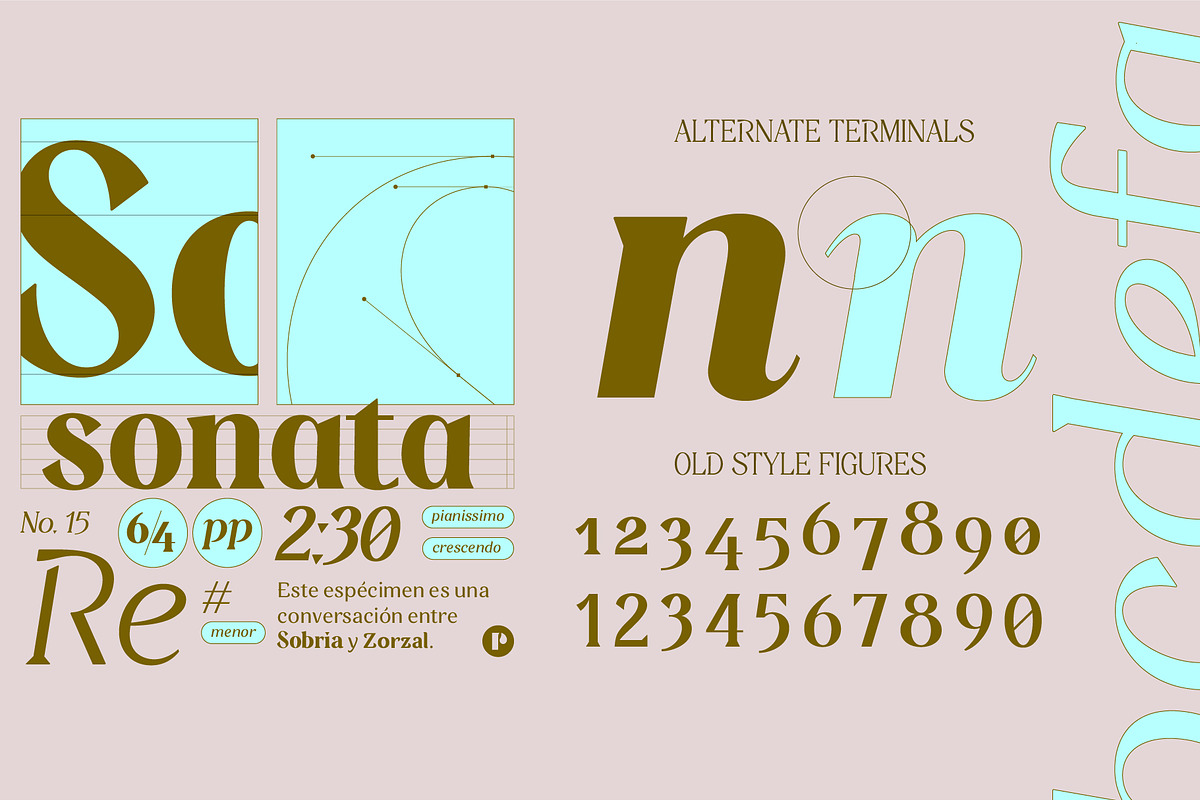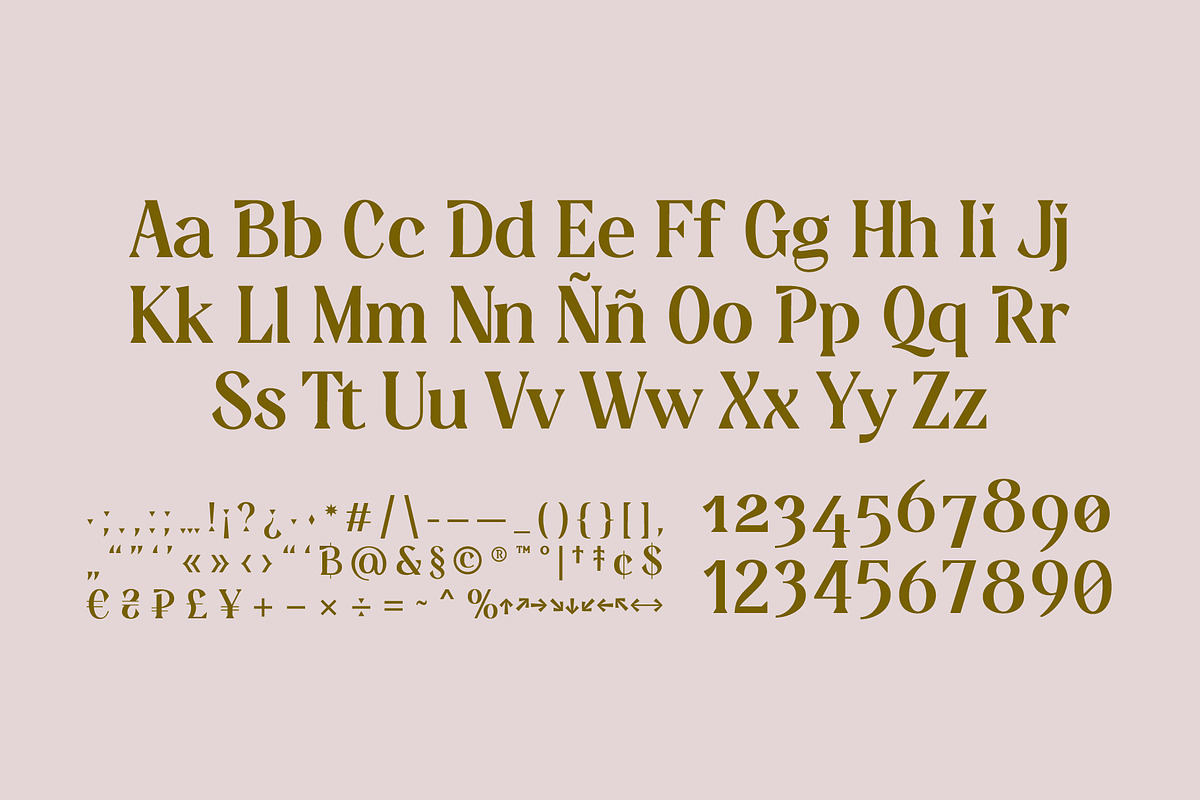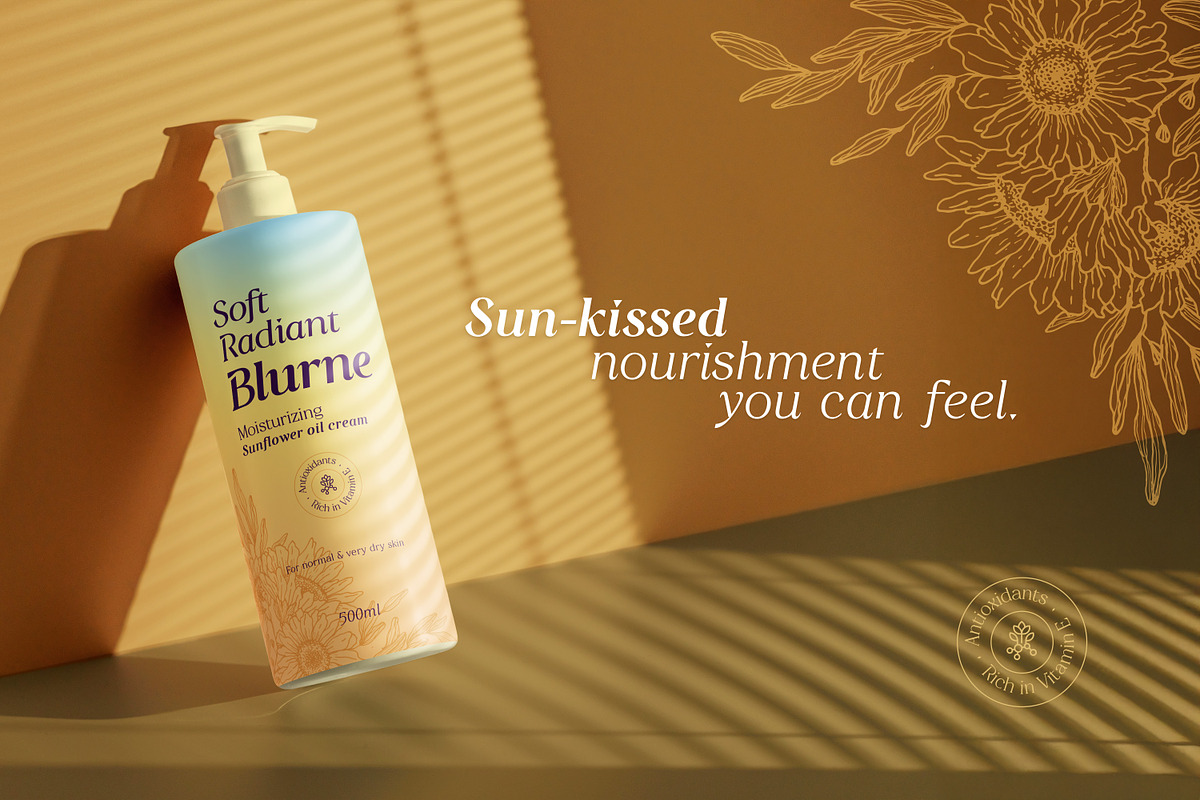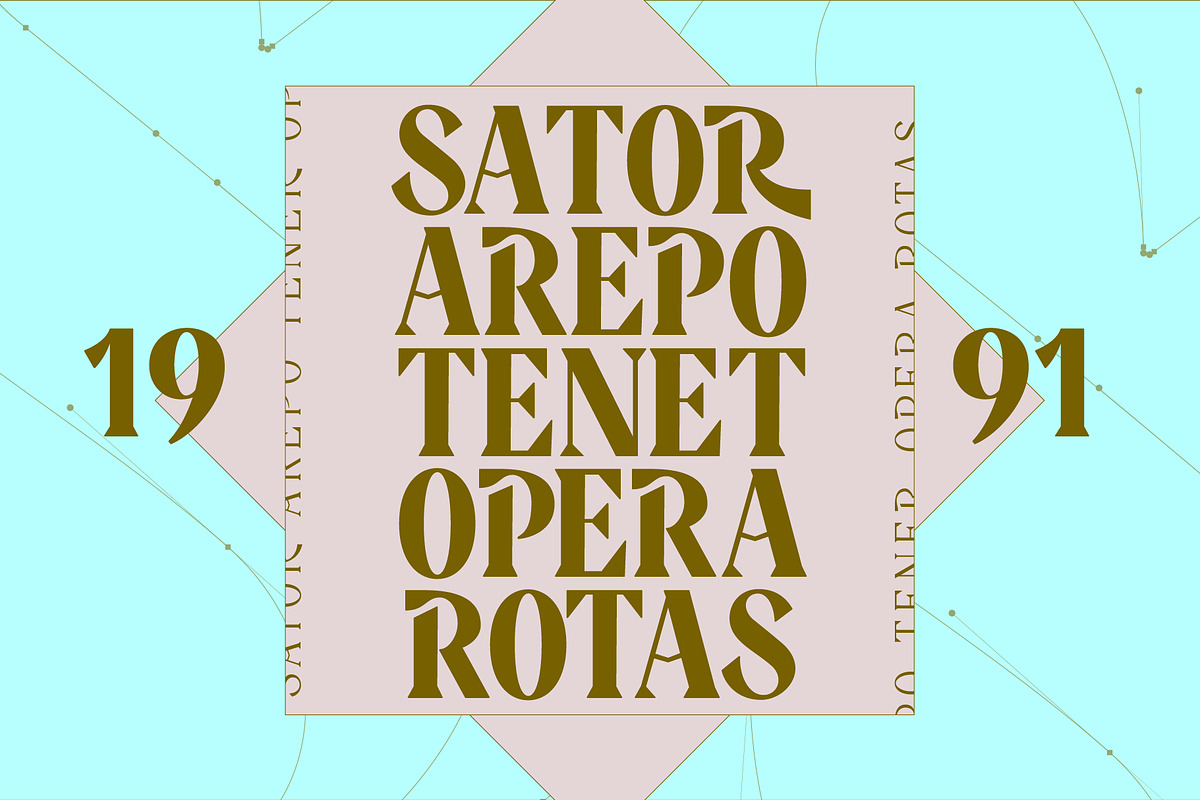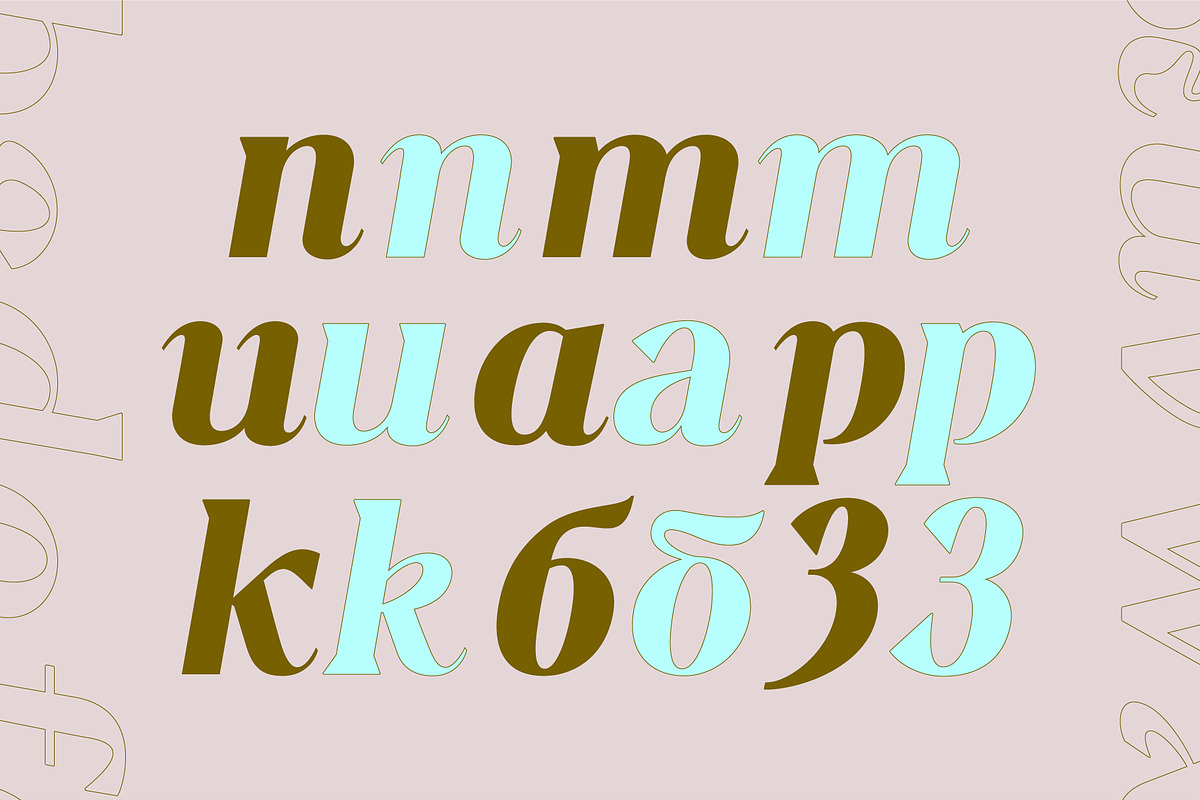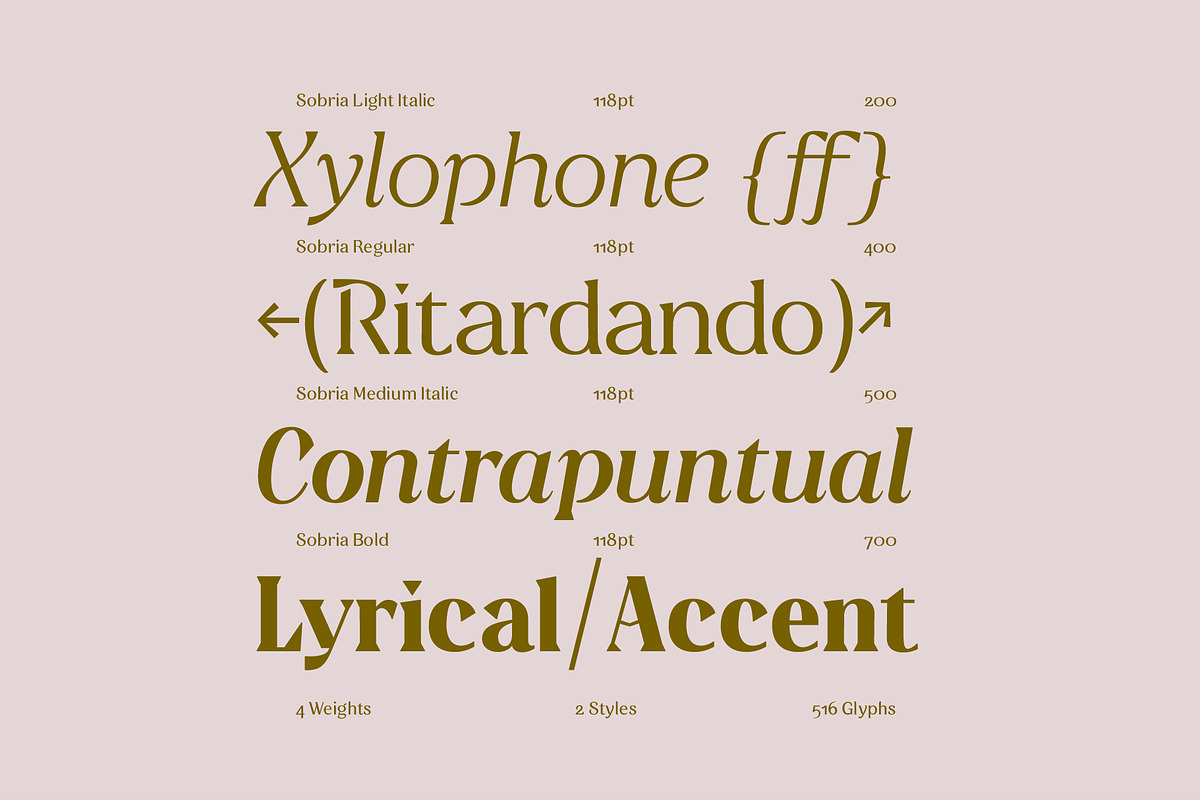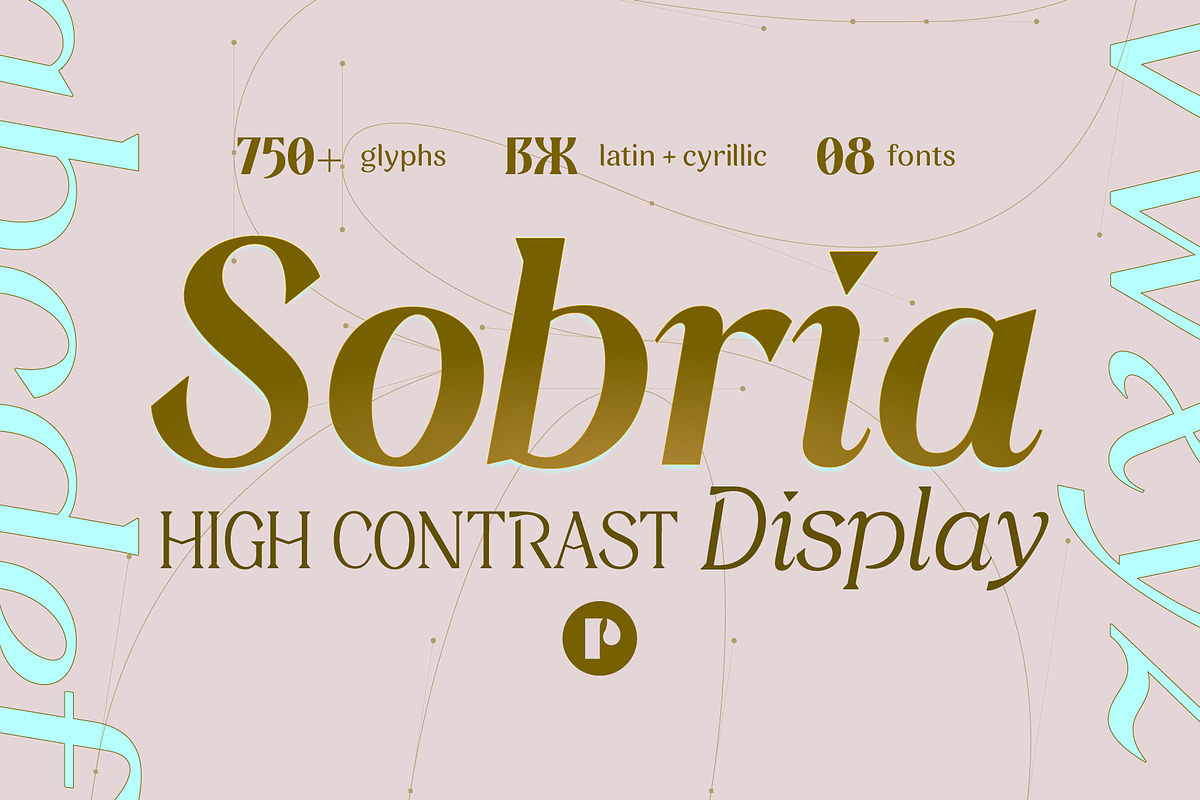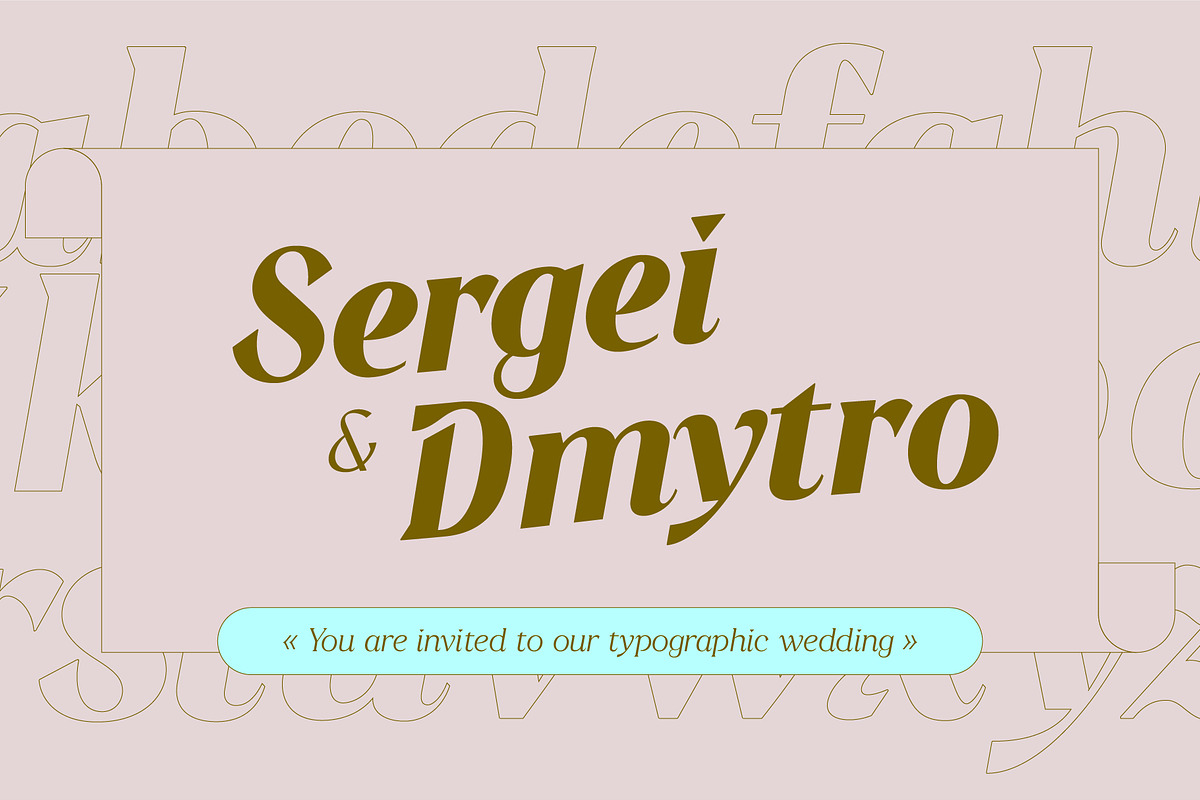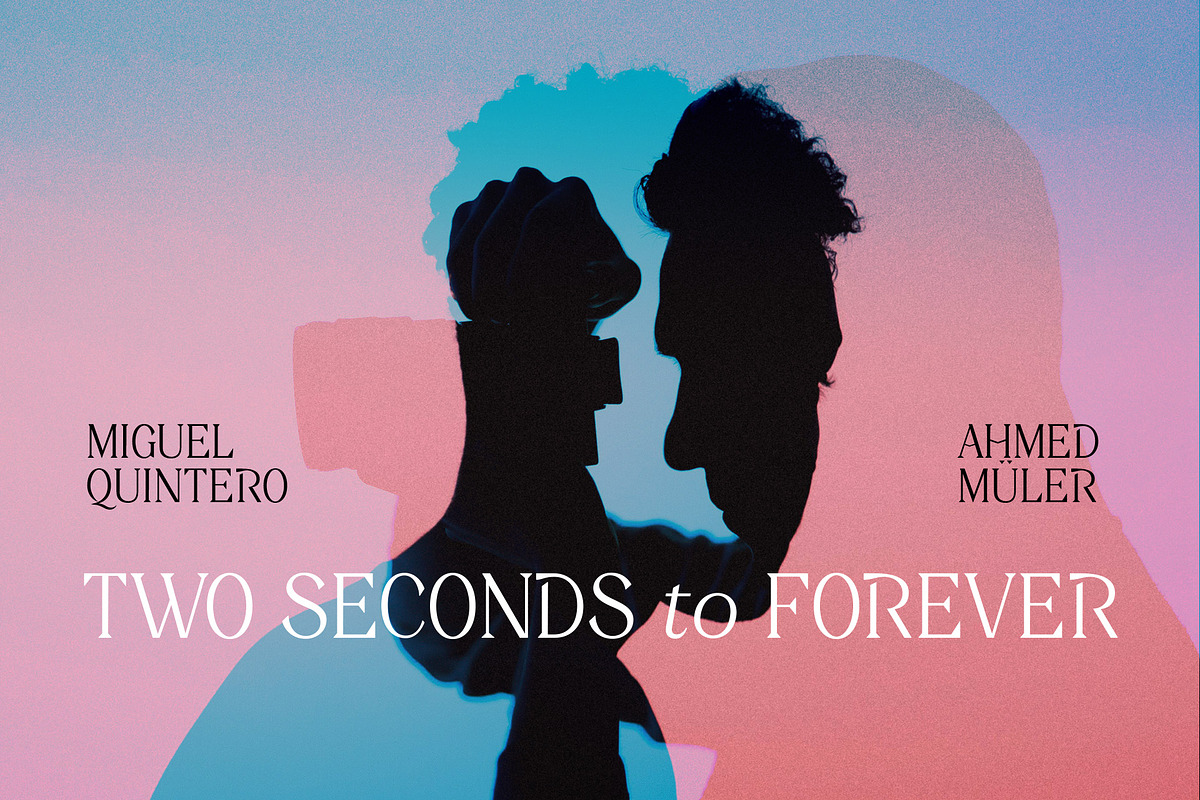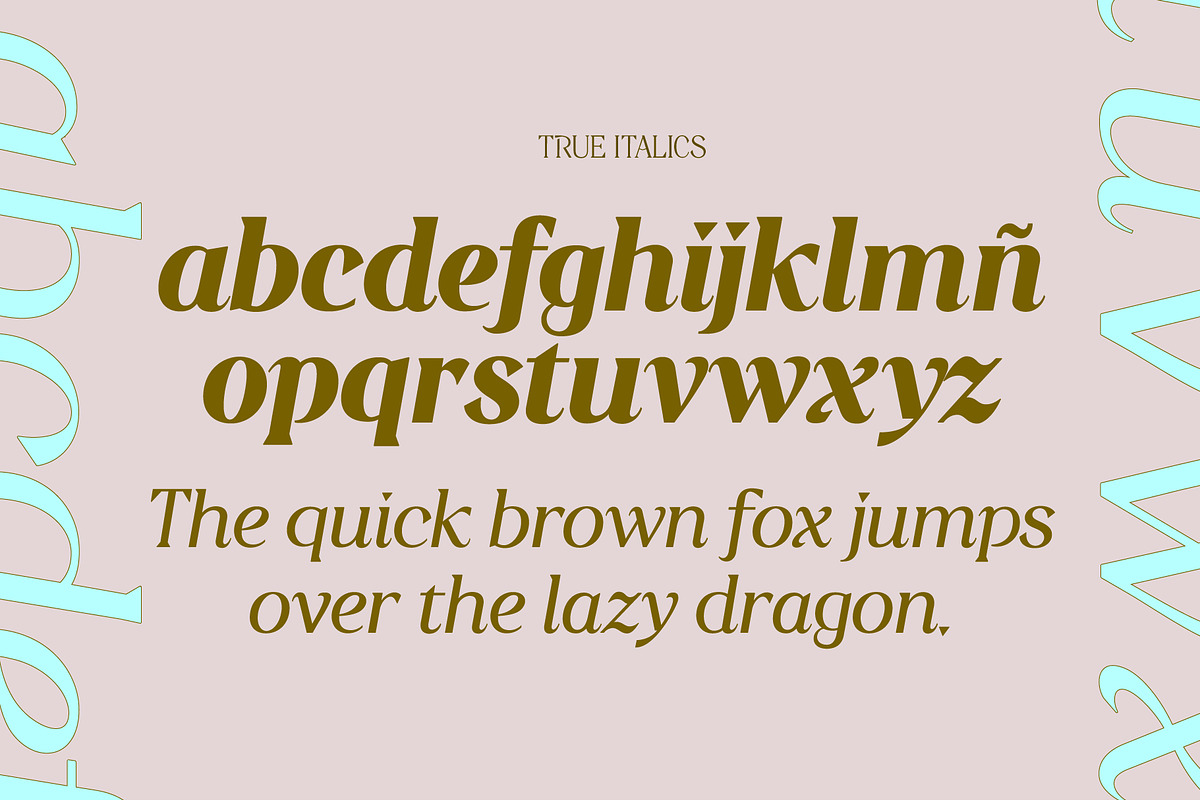
A High Contrast Sharp Serif | Sobria
Sobria is a high-contrast display typeface defined by its sharp triangular serifs and sculptural strokes, made to evoke a sense of finesse with a hint of quiet edge. Its sharp terminals radiate elegance while retaining a bold graphic character. Sobria’s distinct glyphic cuts and unconventional forms — like the sculpted «g» and the disjointed bowls in «B, D, P, R» — bring a unique personality.
Sobria supports both Latin and Cyrillic scripts, covering over 294 languages, and includes stylistic alternate terminals in its italic forms for added fluidity and rhythm. Designed with headlines and standout titles in mind, it performs best when given space to assert its presence.
It pairs especially well with Ozelot and Deliria — offering a refined balance for projects seeking drama with restraint and clarity with character.